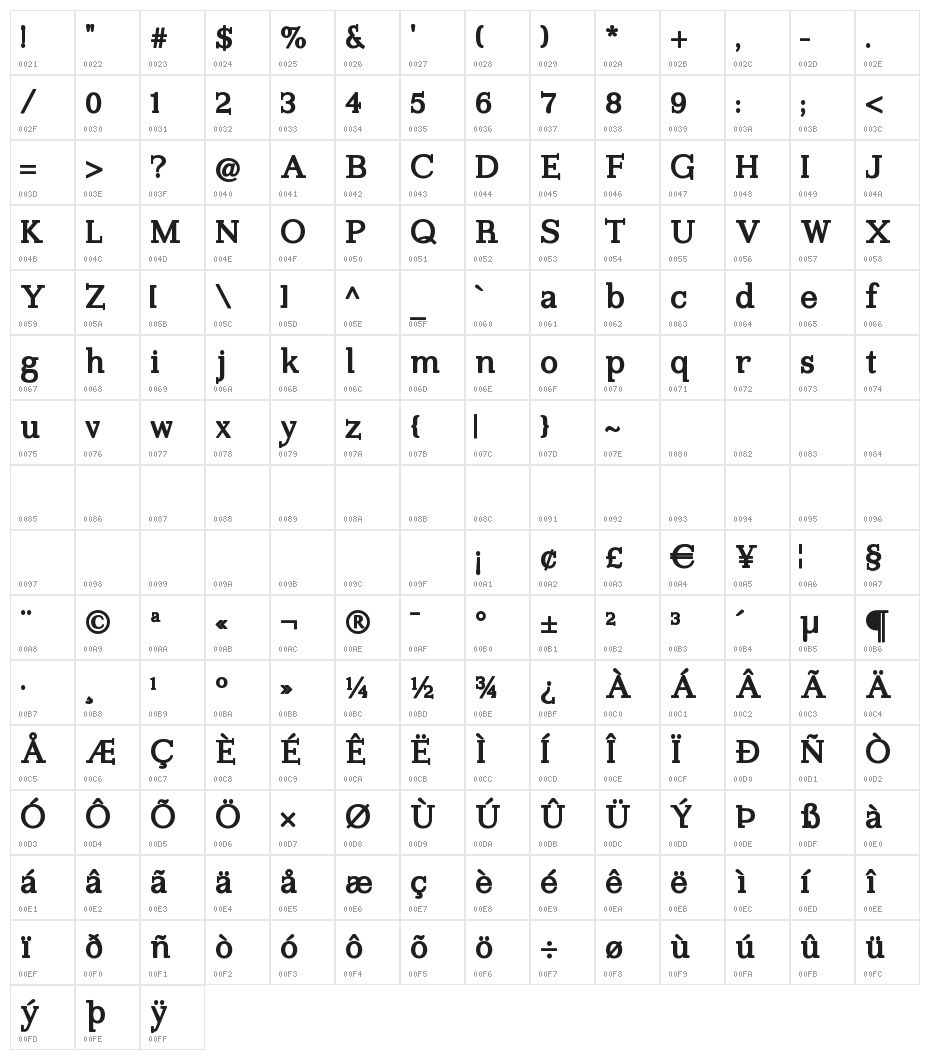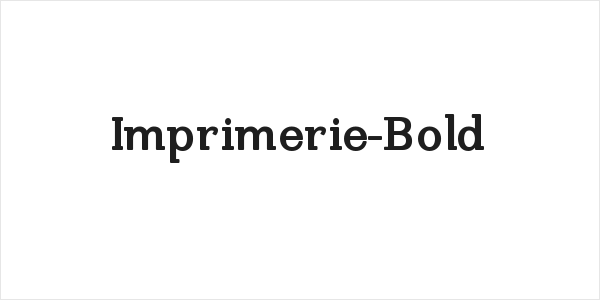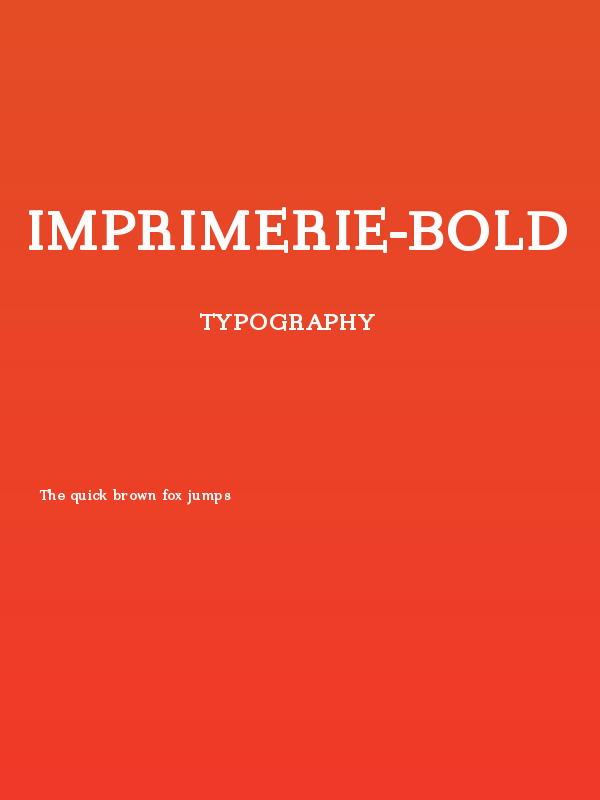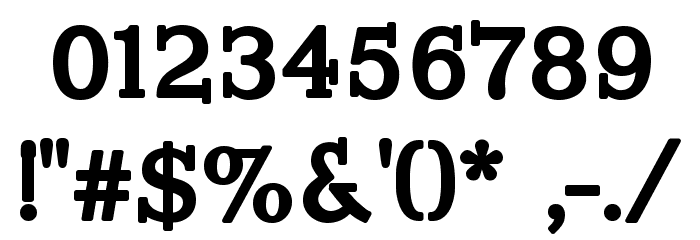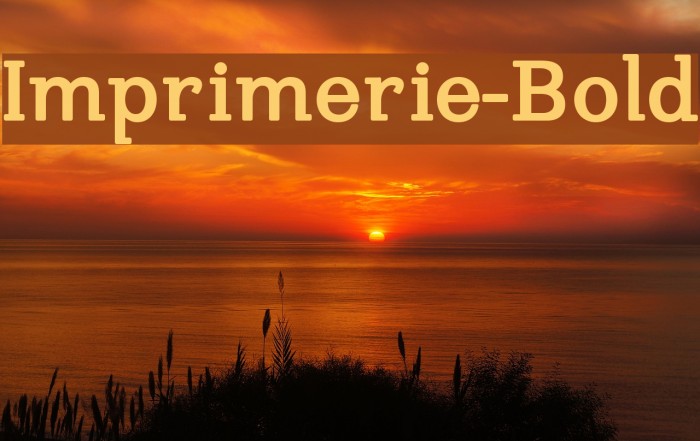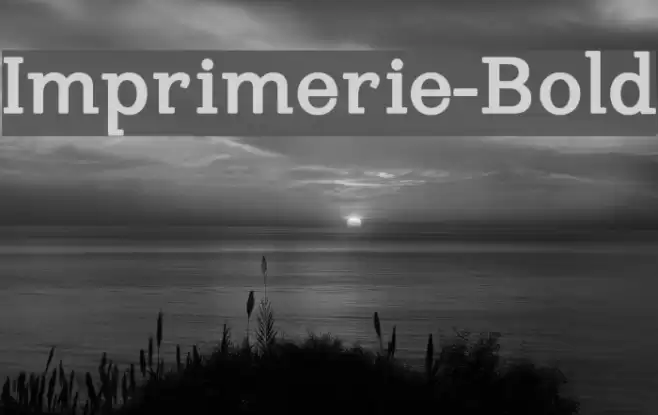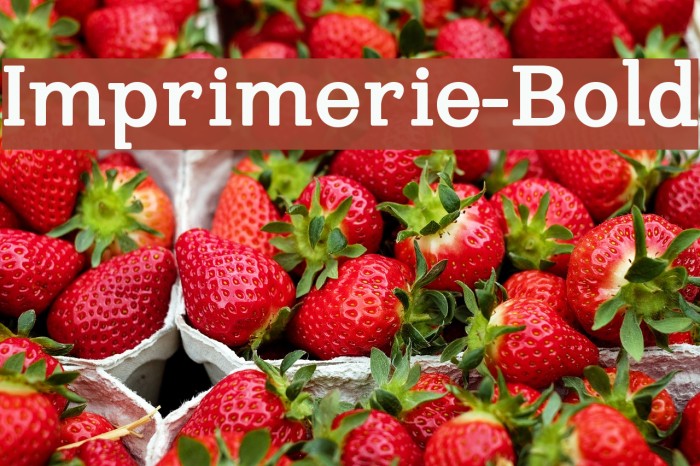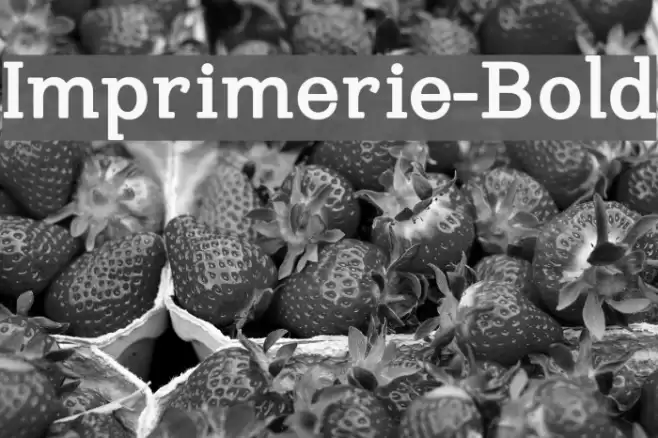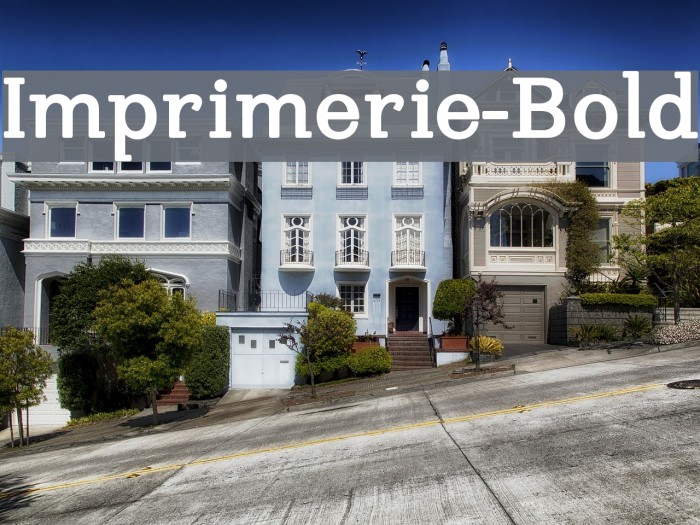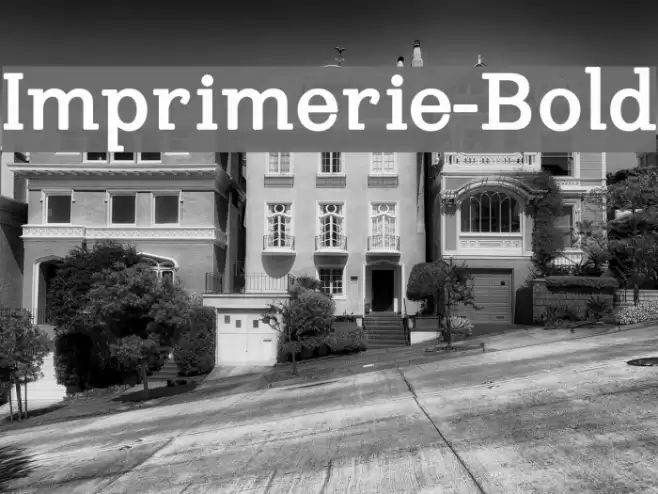
Imprimerie-Bold Font
Imprimerie-Bold Description
This font exhibits a bold and robust character with strong serifs and a classic appeal. The uppercase letters are evenly proportioned, offering a sense of stability and authority. The lowercase letters maintain a consistent weight, contributing to a harmonious and cohesive appearance. Numbers are clear and legible, making them suitable for various applications. The special characters are well-defined, ensuring versatility in design projects. Overall, this font combines traditional serif elements with a modern boldness, making it ideal for impactful and professional use.
| Overall Style | Classic |
| Use Case | Headlines, Logos, Editorial design |
| Proposed Projects | Ideal for branding, editorial design, book covers, and formal invitations. |